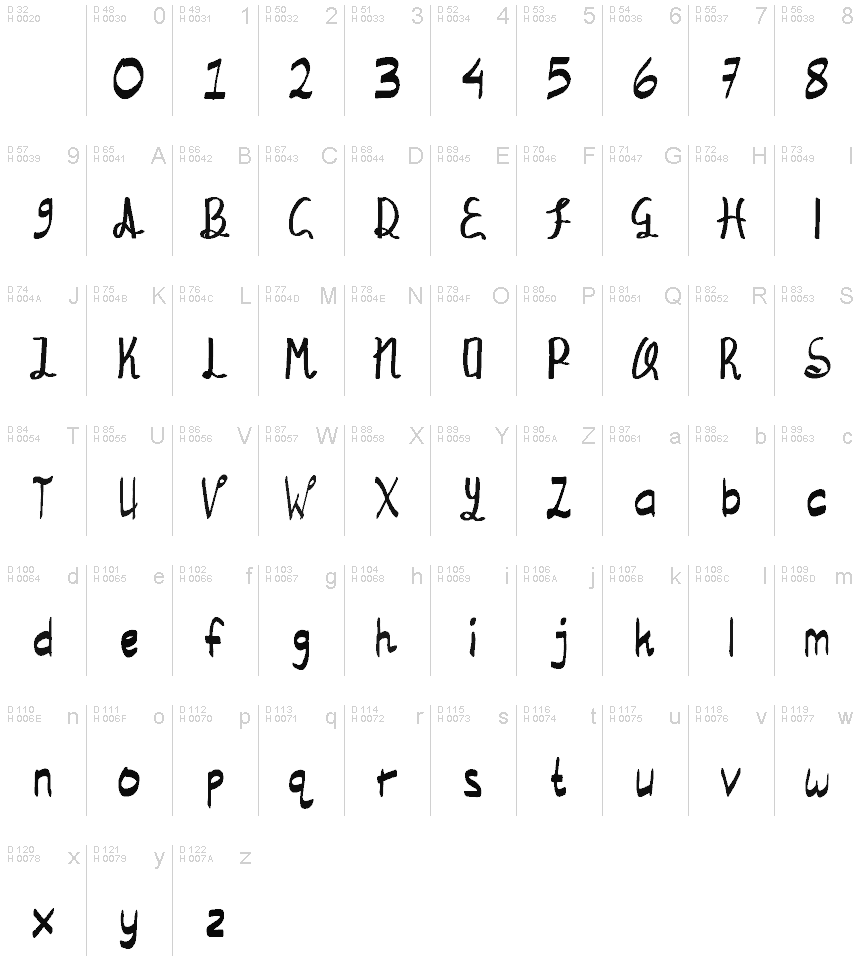
Madagascar
Madagascar is a charming, handwritten font that exudes a playful and whimsical flair. Crafted by the talented Oziel89 Studio, this font boasts a delightfully organic quality, with each letter bearing the distinct imprint of a skilled calligrapher's hand. The flowing, script-like strokes create a sense of effortless elegance, while the slightly irregular shapes and varied line widths add a captivating touch of authenticity.
This font would be a delightful choice for a variety of design projects, from greeting cards and invitations to book covers and logo designs. Its versatility and distinctive character make it an excellent option for those seeking to infuse their work with a touch of artisanal charm and personal expression.
Oziel89 Studio